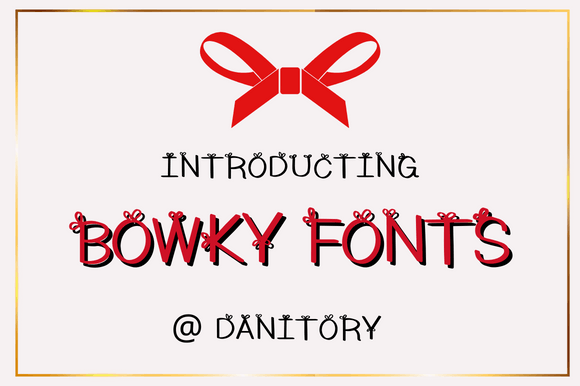
Indulge in the enchanting world of Bowky Font, a captivating display font that will elevate your designs to new heights. Gracefully crafted with a gentle, sweet character, Bowky's endearing details, including adorable bows, will add a touch of whimsy to your creations.
Unleash your creativity with Bowky Font, the perfect choice for crafting heartfelt gifts, adorning your digital designs, or making presentations that leave a lasting impression. Whether you're a seasoned designer or just starting out, Bowky Font will empower you to express yourself with elegance and flair. Embrace the charm of Bowky and let your designs shine with a touch of sweetness and sophistication.